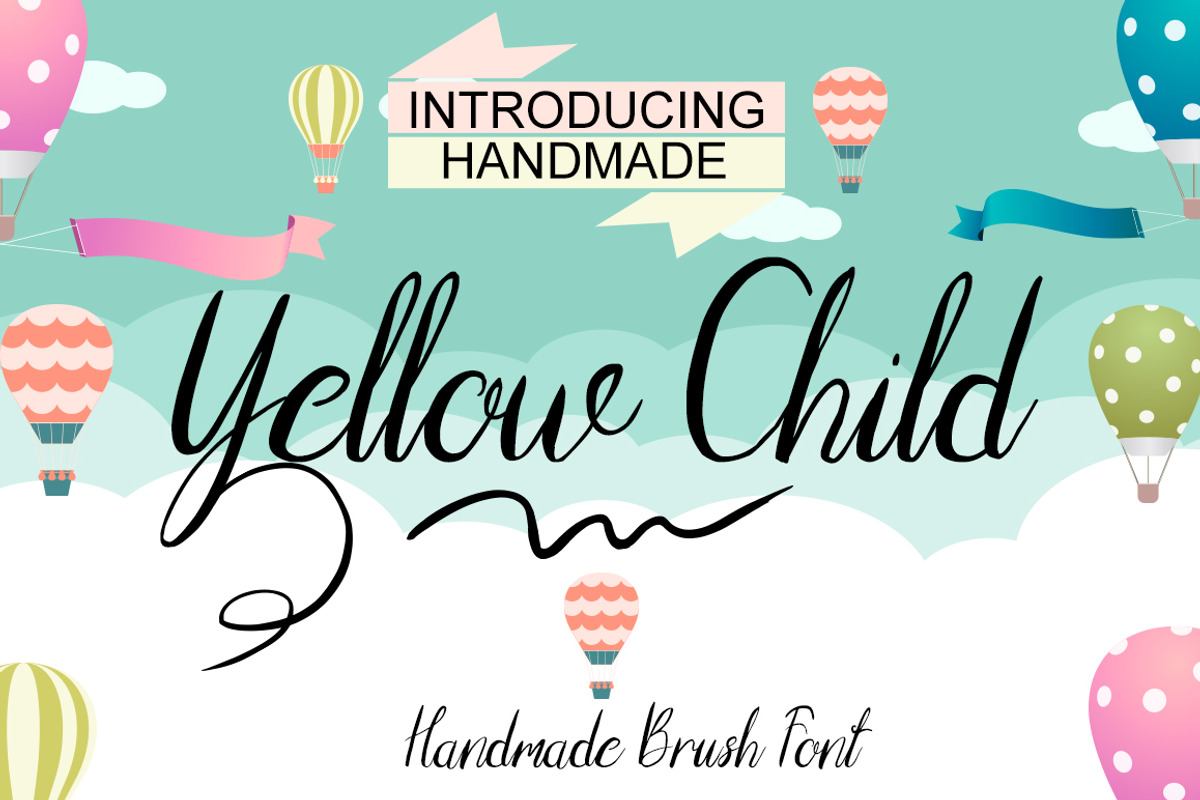
Yellow Script Free Download
Yellow Script Font Free Download
This stylish and elegant Yellow Script Font Free Download is perfect for adding a personal touch to any project. With its beautiful cursive style, it brings a unique handwritten feel to your design, making it ideal for logos, invitations, or creative projects. Please note that for commercial use, you will need to purchase a license. However, you can download it for free for testing purposes.
This font is designed with both readability and flair in mind, making it a versatile choice for any project that requires a sophisticated handwritten script. It’s perfect for branding, advertising, and creating stunning visuals that stand out.
Feel free to explore the Yellow Script Font Free Download and see how it can elevate your designs. Whether you are creating a website, a social media post, or a print project, this font will provide the perfect finishing touch. Keep in mind that while it's available for free for personal use, if you're using it for commercial purposes, purchasing a license is necessary.